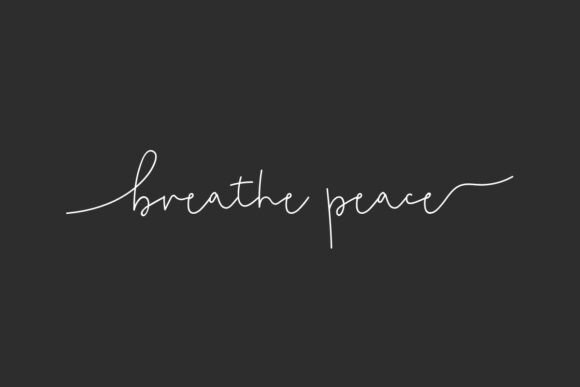
The Power of Breathe Peace Font: Elevate Your Designs with Elegance and Simplicity
Have you ever been in the middle of a design project, and suddenly, you’re stuck on finding the perfect font? I recall a recent experience where I was working on a branding project for a wellness client, and I just couldn’t find a font that conveyed the sense of calm and serenity I was looking for. That’s when I stumbled upon the Breathe Peace Handwriting font, and it completely transformed my design. In this article, we’ll explore the beauty of Breathe Peace, its features, and how to make the most of it in your designs.
A Personal Review: What I Love About Breathe Peace
Breathe Peace Handwriting is a delicate and flowing signature font that captures the essence of simplicity and warmth. Here are some things I love about it:
• ✨ Delicate and flowing curves that bring emotional depth to every message
• ✅ Easy to read, making it incredibly versatile for various design projects
• 🌐 Supports multiple languages, including multiple currency symbols
• 🎨 Includes alternate characters to enhance its handwritten authenticity
While Breathe Peace is an amazing font, there are a few minor quirks to be aware of:
• 🤔 Some users might find the font a bit too delicate for certain design projects, such as bold or attention-grabbing headlines
• ⚠️ As with any font, it’s essential to test it in different contexts to ensure it works well with your specific design
The Story Behind Breathe Peace
Breathe Peace was designed with the intention of creating a font that embodies simplicity, warmth, and elegance. The designer aimed to craft a font that would bring a sense of calm and serenity to any design project. With its delicate curves and handwritten authenticity, Breathe Peace is perfect for designers who want to add a touch of personality to their work.
What industries is Breathe Peace suitable for? Breathe Peace is suitable for various industries, including life & style, events & hospitality, and marketing & print. It’s perfect for beauty product brands, fashion, furniture, handicrafts, photography, café menus, event or wedding organizer stationery, and invitations.
Does Breathe Peace support multiple languages? Yes, Breathe Peace supports multiple languages, including multiple currency symbols.